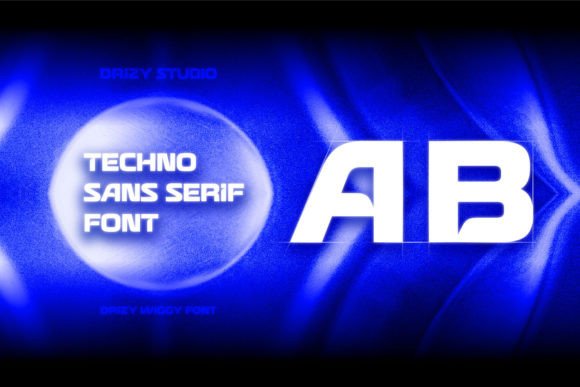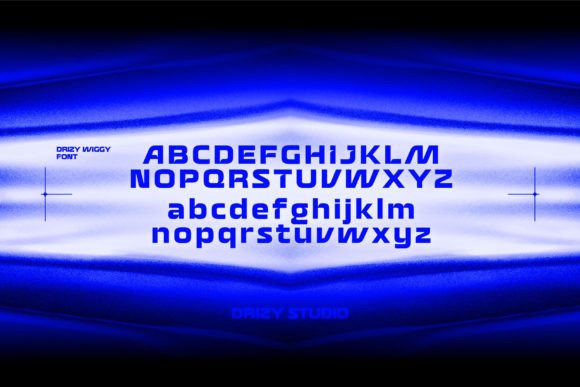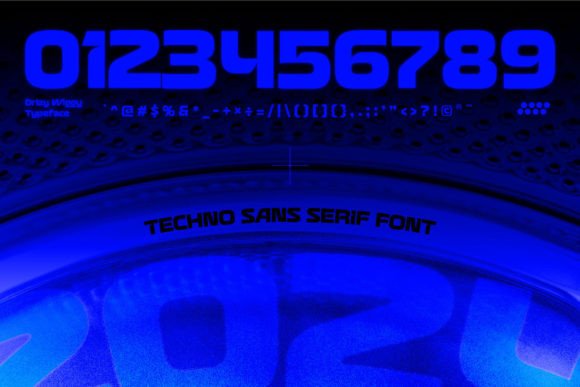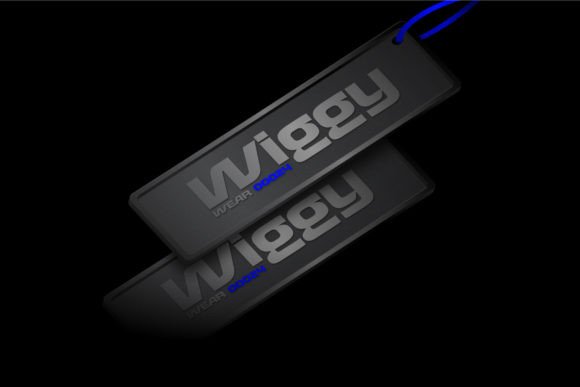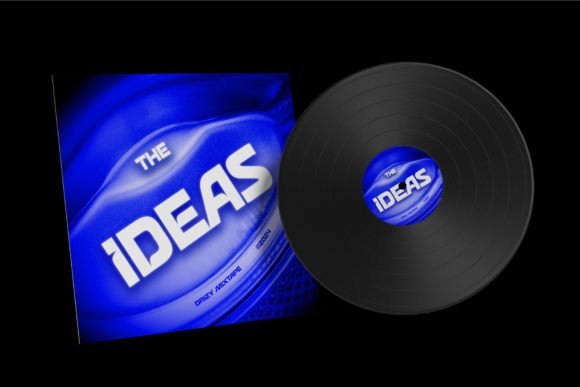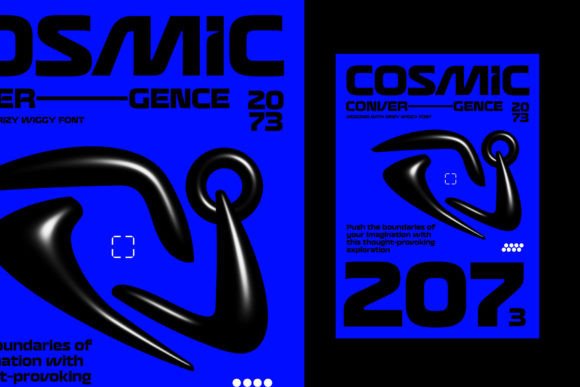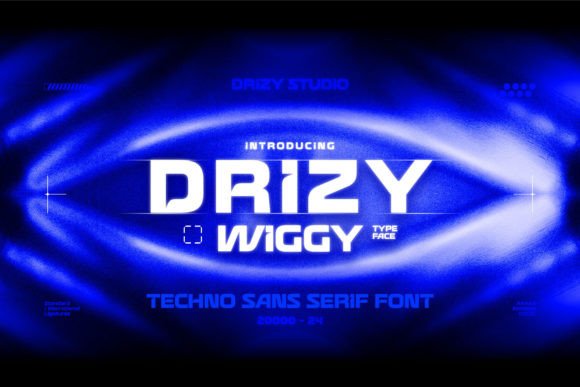
Drizy Wiggy Font: Elevate Your Designs with a Cutting-Edge Techno Sans Serif Font
In the realm of typography, fonts play a pivotal role in shaping the visual identity of a design project. With numerous font styles available, selecting the right one can be a daunting task, especially for designers and crafters seeking a bold and dynamic aesthetic. This is where Drizy Wiggy comes into play – a revolutionary Techno Sans Serif font that embodies modernity and innovation.
Introducing Drizy Wiggy: A Futuristic Typeface
Drizy Wiggy is a meticulously crafted font that exudes a futuristic flair, making it an ideal choice for designers who want to push the boundaries of creativity. Its sleek and streamlined design ensures that it can be effortlessly paired with a wide range of design projects, from cutting-edge technology products to avant-garde fashion brands.
Key Features of Drizy Wiggy Font
- Techno Sans Serif Design: Drizy Wiggy boasts a sans serif design that screams modernity and sophistication. Its clean lines and geometric shapes make it perfect for designs that demand a futuristic look.
- Bold and Dynamic Aesthetic: This font is designed to make a statement. Its bold and dynamic aesthetic ensures that your designs stand out from the crowd, capturing the attention of your audience.
- Precision Crafted: Every detail of Drizy Wiggy has been meticulously crafted to ensure that it meets the highest standards of typography. The result is a font that looks stunning in both digital and print formats.
- Versatility: Drizy Wiggy is incredibly versatile, making it suitable for a wide range of design projects, including branding, advertising, packaging, and more.
Why Choose Drizy Wiggy Font?
With so many fonts available, why should you choose Drizy Wiggy for your design projects? Here are a few compelling reasons:
- Unique and Memorable: Drizy Wiggy’s unique design ensures that your projects stand out from the competition, making them more memorable to your audience.
- Easy to Read: Despite its bold and dynamic aesthetic, Drizy Wiggy remains easy to read, even at smaller font sizes.
- Customizable: Drizy Wiggy can be easily customized to fit your brand’s identity, allowing you to experiment with different colors, textures, and effects.
Using Drizy Wiggy Font in Your Design Projects
So, how can you incorporate Drizy Wiggy into your design projects? Here are a few ideas to get you started:
- Branding and Logo Design: Use Drizy Wiggy to create a bold and memorable logo that reflects your brand’s modern and innovative personality.
- Advertising and Marketing Materials: Drizy Wiggy is perfect for creating eye-catching advertising and marketing materials, such as brochures, flyers, and social media graphics.
- Packaging Design: Add a touch of modernity to your product packaging with Drizy Wiggy, making it stand out on store shelves.
Drizy Wiggy is more than just a font – it’s a design statement. Its cutting-edge Techno Sans Serif design, precision crafting, and versatility make it an ideal choice for designers and crafters seeking a bold and dynamic aesthetic. Whether you’re working on a branding project, advertising campaign, or packaging design, Drizy Wiggy is sure to elevate your designs to the next level.